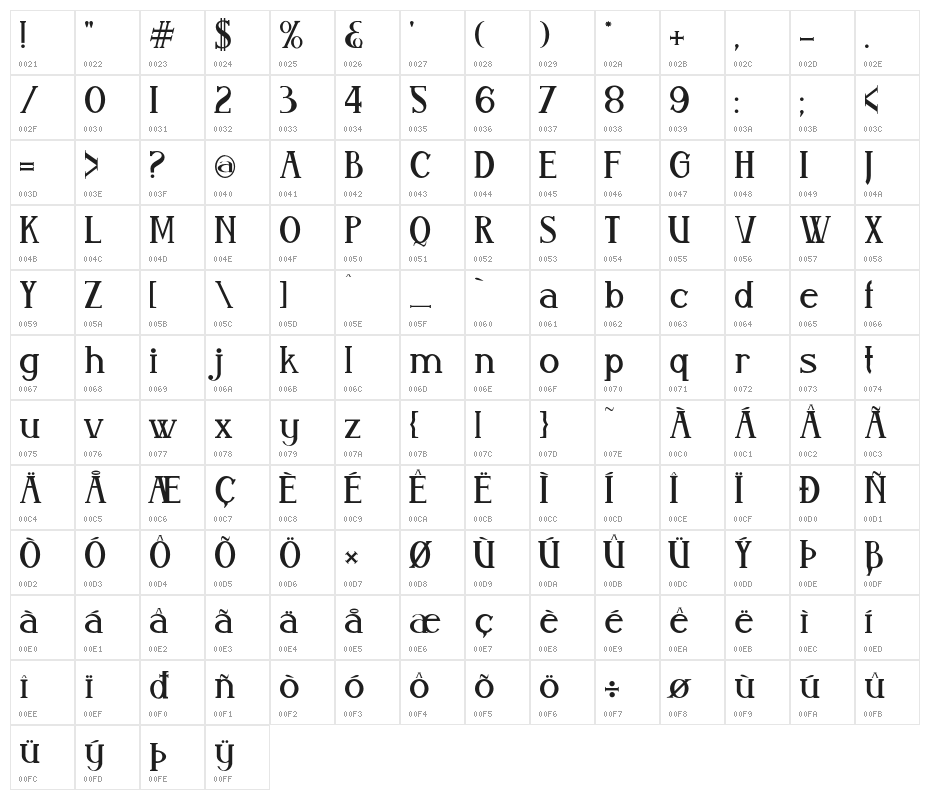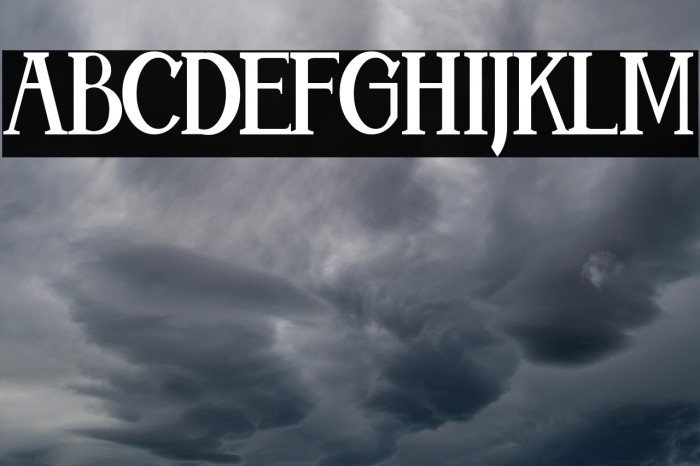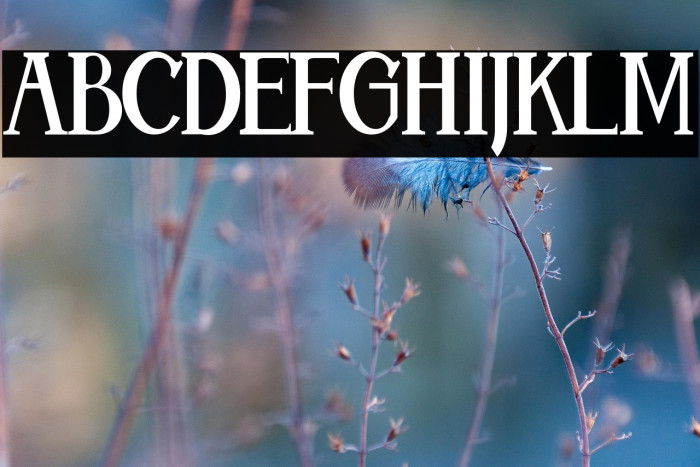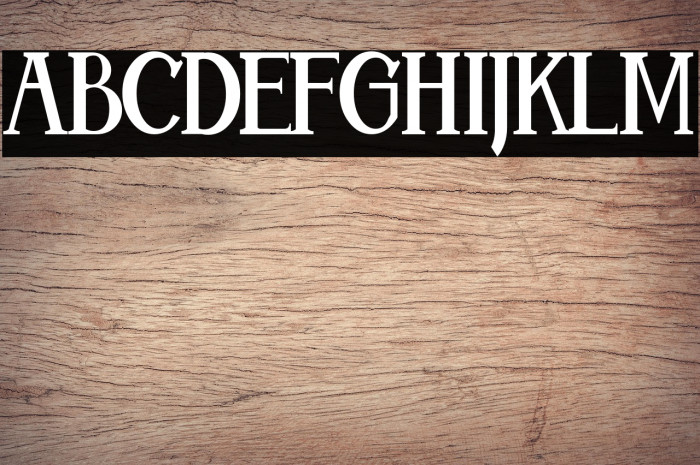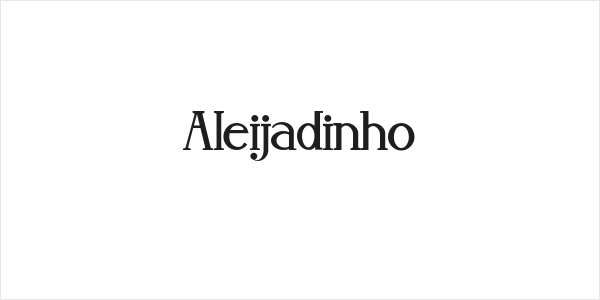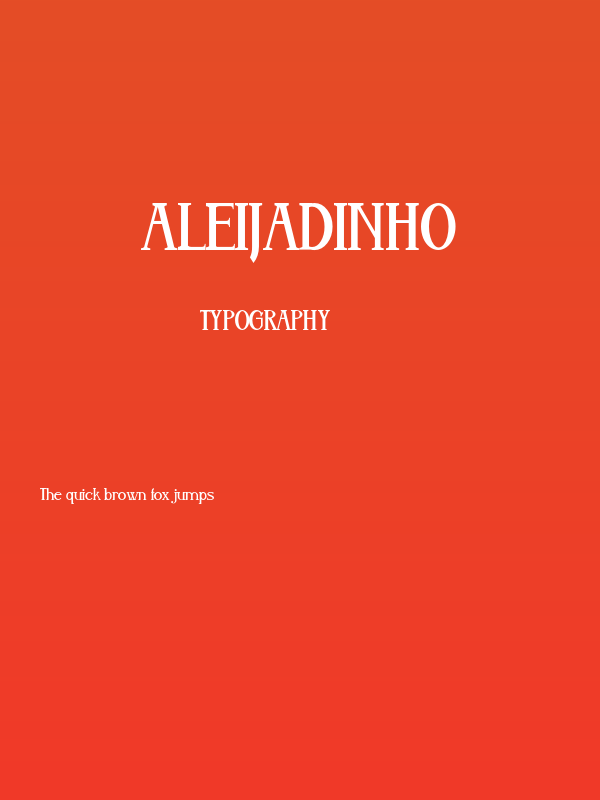
Aleijadinho Font
Aleijadinho Description
This font features a distinctive and artistic style with a blend of classic and modern elements. The uppercase letters are bold and have a strong presence, with unique serifs that add a touch of elegance. The lowercase letters maintain a consistent style, offering a harmonious balance between readability and decorative flair. The numerals are clear and well-defined, making them suitable for various applications. Special characters are creatively designed, enhancing the overall aesthetic appeal. This font is versatile, making it ideal for projects that require a blend of tradition and modernity.
| Overall Style | Classic, Modern |
| Use Case | Headlines, Logos, Editorial Design |
| Proposed Projects | Ideal for branding, editorial design, posters, and packaging that require a touch of elegance and creativity. |